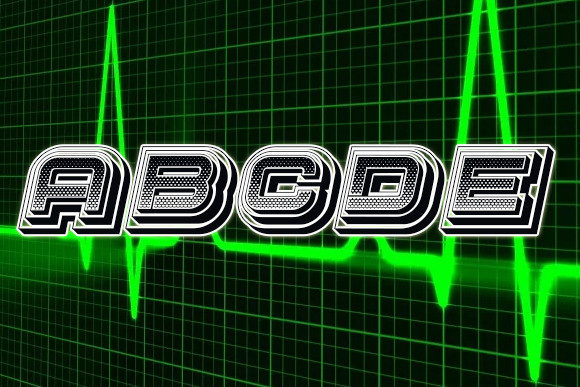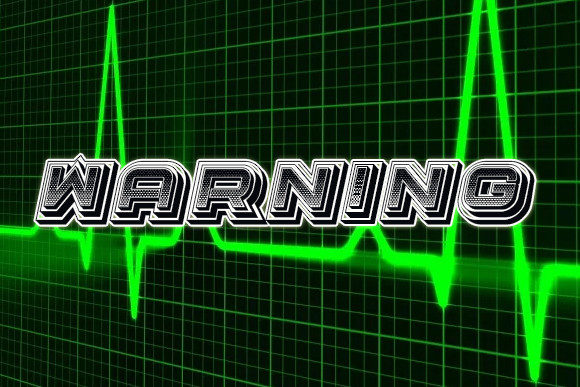
Introduction to Radiation Font
Radiation is a cool, bold and textured display font.
It is the best choice for creating sporty and speed related designs such as racing cars, basketball games or pretty much anything that could benefit from a strong vibe .
Radiation Font offers exceptional quality and versatility, making it a valuable addition to your design toolkit. Whether you’re creating for personal projects or commercial use, Radiation Font delivers professional results.